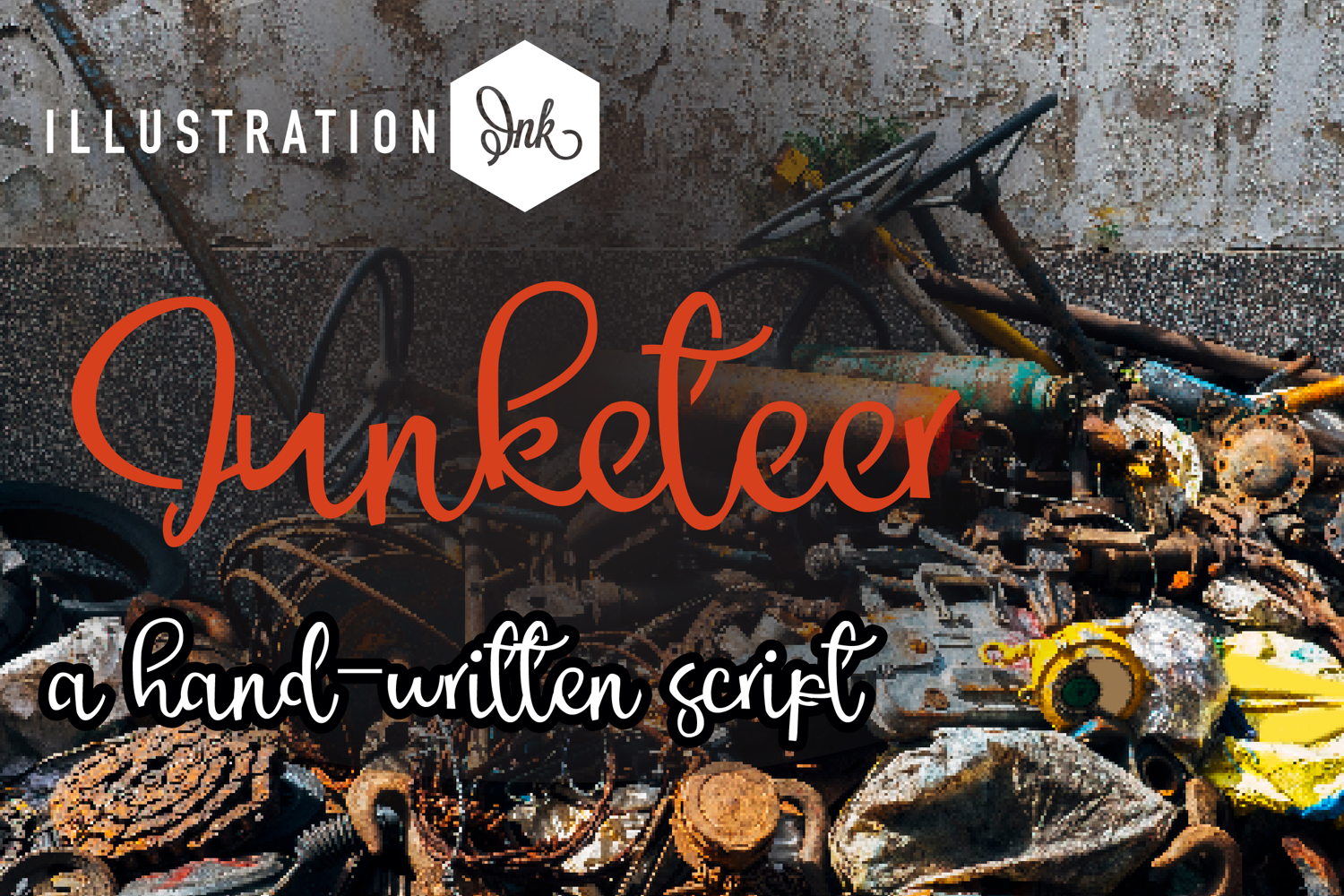
This hand-crafted font is a crafty script with a bouncy baseline.
• The letters are not perfectly uniform in size or shape.
• There may be slight variations in the spacing between letters and words.
• The font may have a "wiggly" or "squiggly" appearance.
• The font may be difficult to read at small sizes.